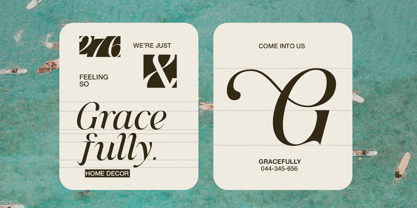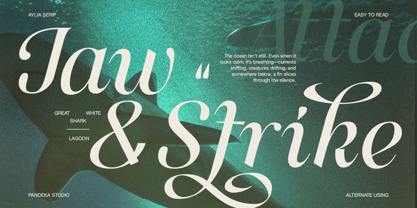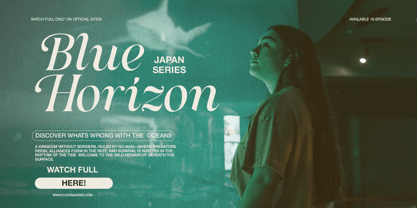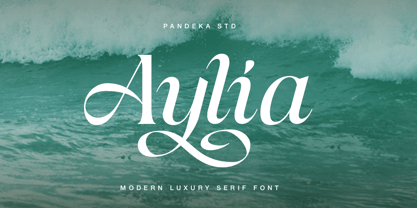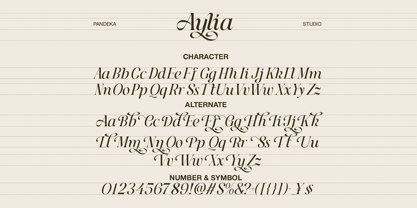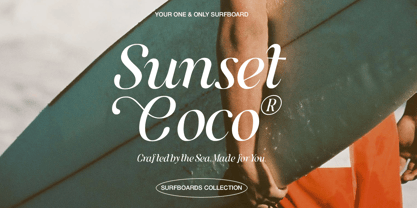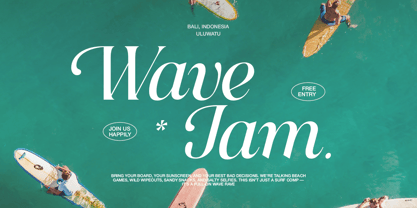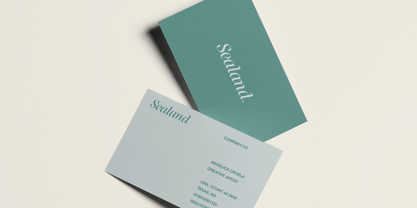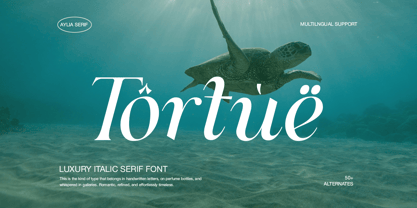
Aylia
by Pandeka Studio
The Aylia Font Family was designed by Sagara Nararya and published by Pandeka Studio. Aylia contains 1 styles. More about this family
Aylia is a luxurious serif font that combines seaside elegance with modern flair. Designed with smooth curves, flowing alternates, and a clean yet expressive structure, Aylia captures the essence of coastal sophistication. It’s perfect for brands that want to communicate warmth, class, and confidence.
From fashion labels and surf-inspired branding to wellness packaging and upscale editorial spreads, Aylia adapts with timeless charm. With full multilingual support, stylistic alternates, and swash details, it adds effortless elegance to any design.
• Full Character Set: Uppercase, lowercase, numbers, symbols, and punctuation
• 35+ Ligatures and alternates
Designers: Sagara Nararya
Foundry: Pandeka Studio